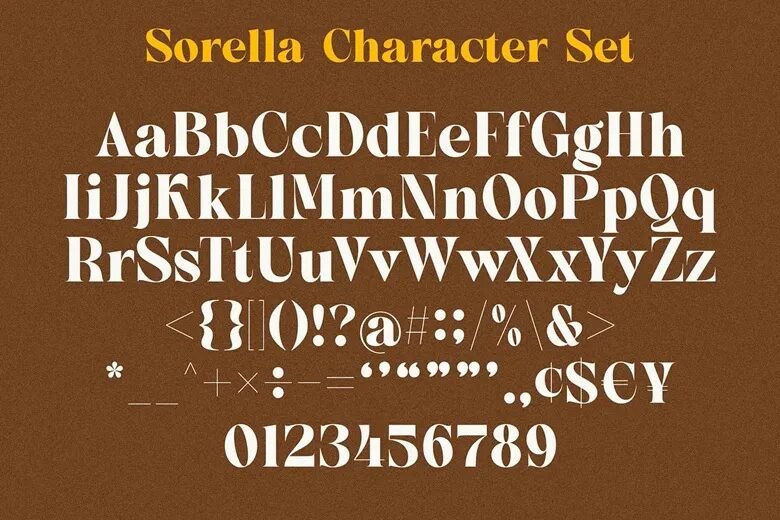
Sorella is a stylish and elegant serif font that is daring and bold. This font can be so much relevant to your numerous requirements like a branding design, logos, social media posting, advertisements and labels, product packaging, photography and wedding designs, watermarks and invitation to product designing, stationeries and any type of project.